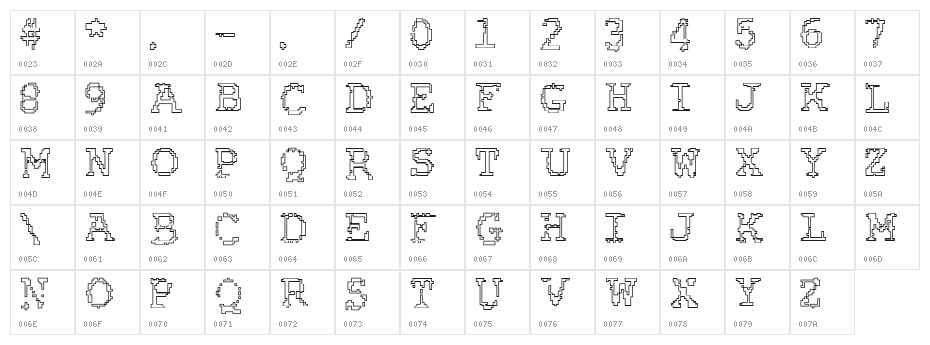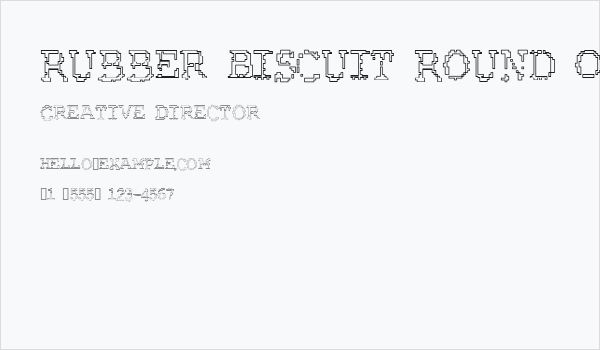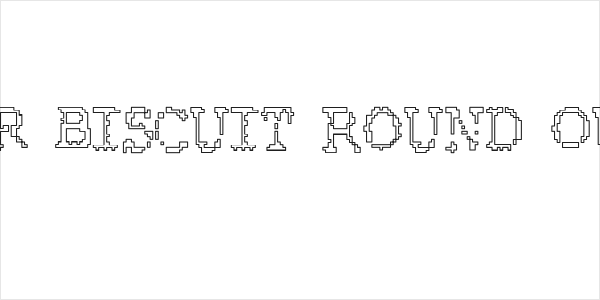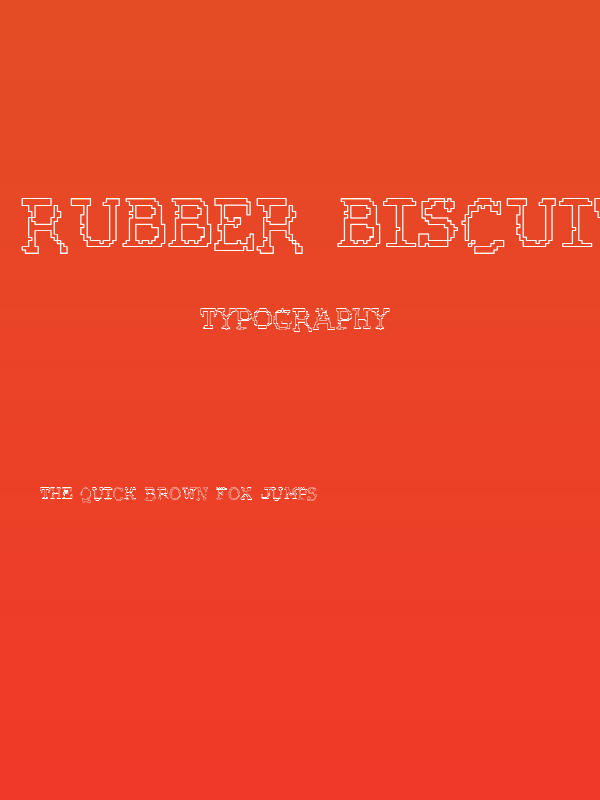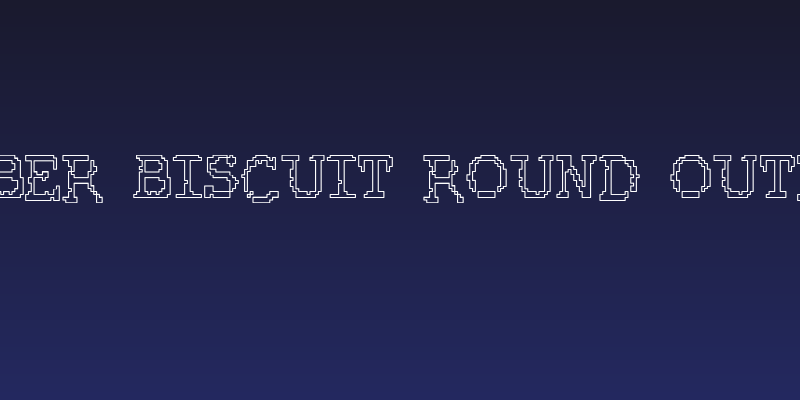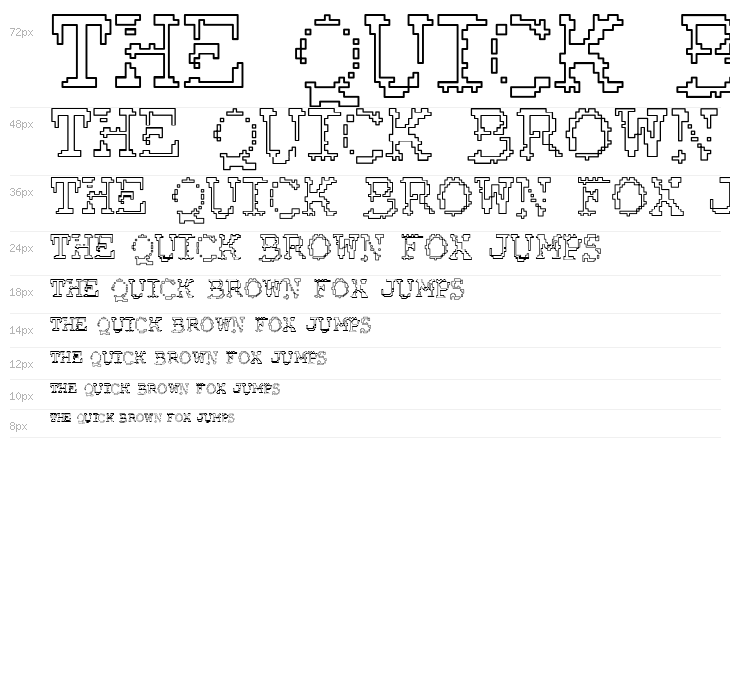
Rubber Biscuit Round Outline Font
Rubber Biscuit Round Outline Description
This font features a unique, playful outline style with a rounded, biscuit-like appearance. Each character is defined by a bold, pixelated outline that gives it a distinct, retro feel. The uppercase and lowercase letters maintain a consistent design, with the lowercase being slightly smaller in size. Numbers and special characters follow the same stylistic approach, ensuring uniformity across all glyphs. The font's quirky and fun design makes it stand out, ideal for projects that require a touch of whimsy and creativity.
| Overall Style | Retro, Playful |
| Proposed Projects | Ideal for children's books, playful branding, video game graphics, and creative posters. |